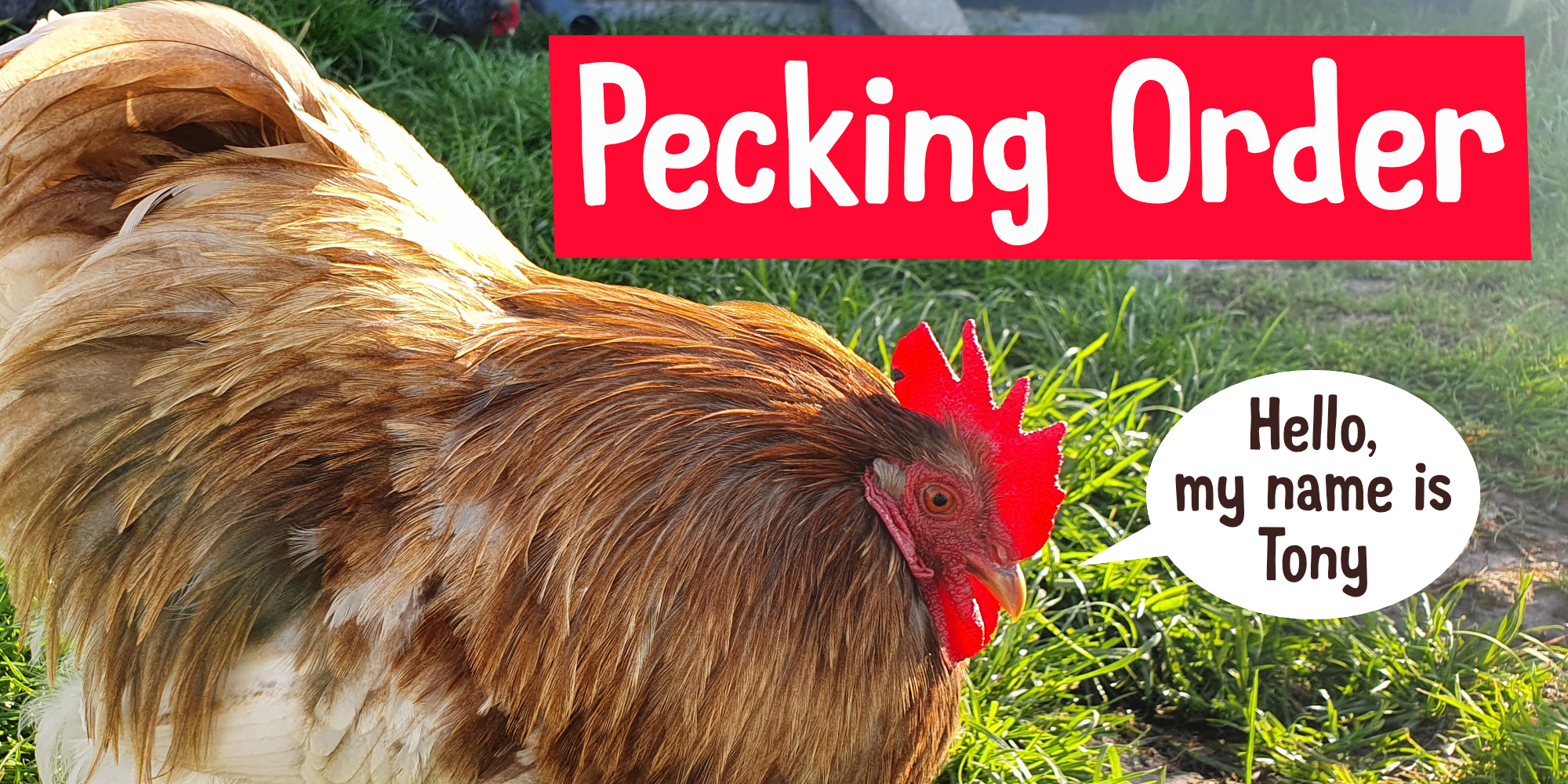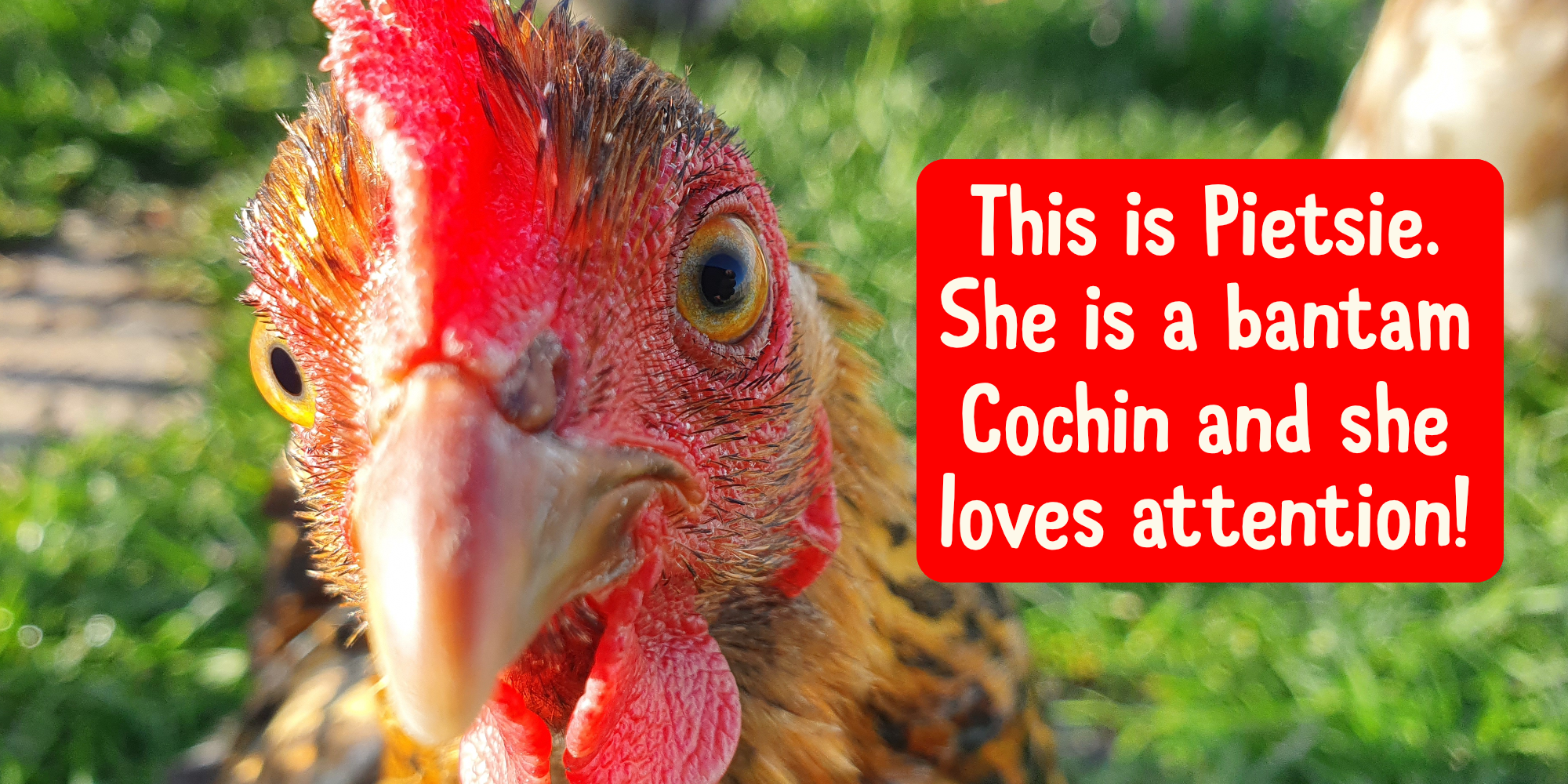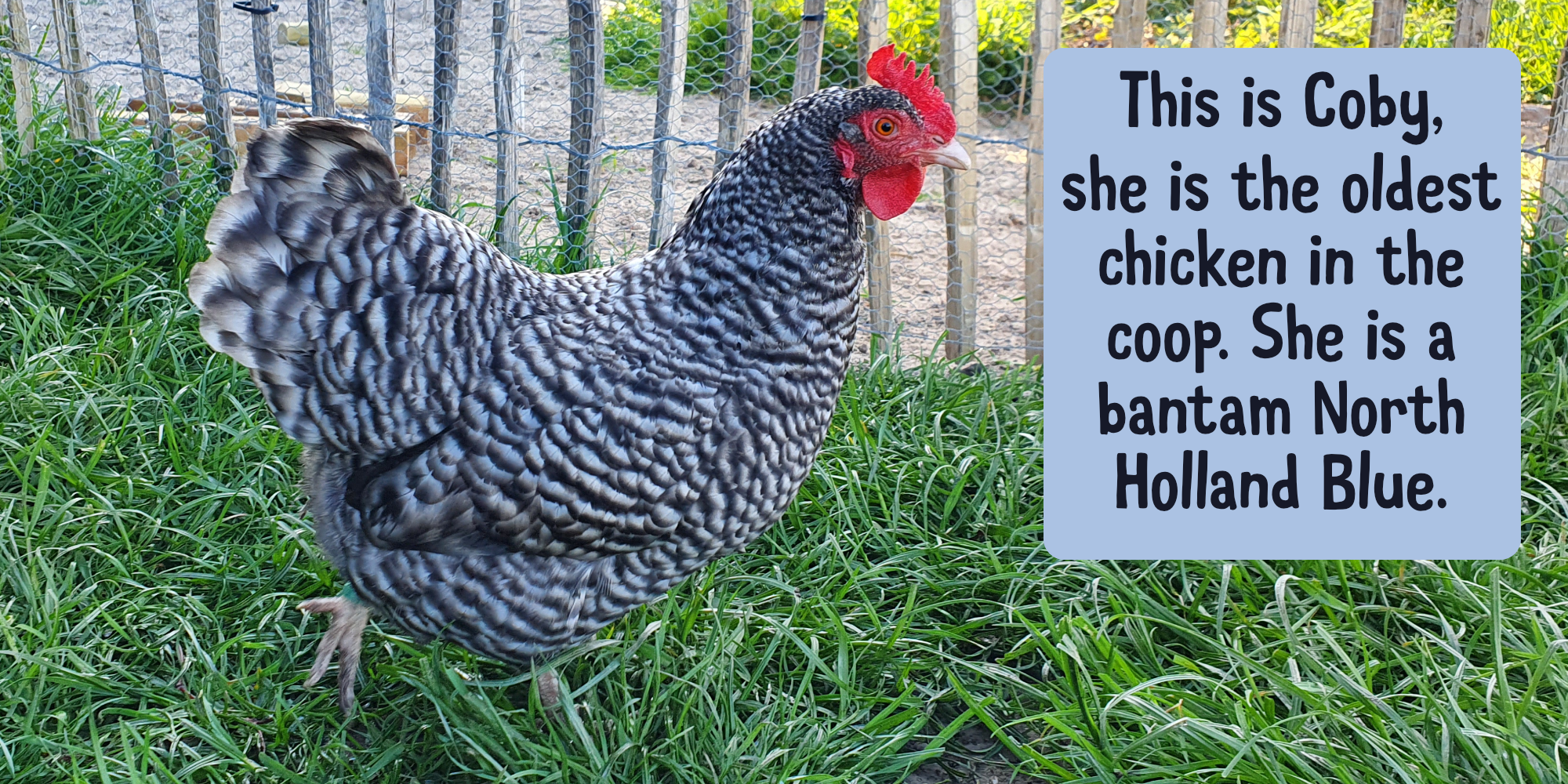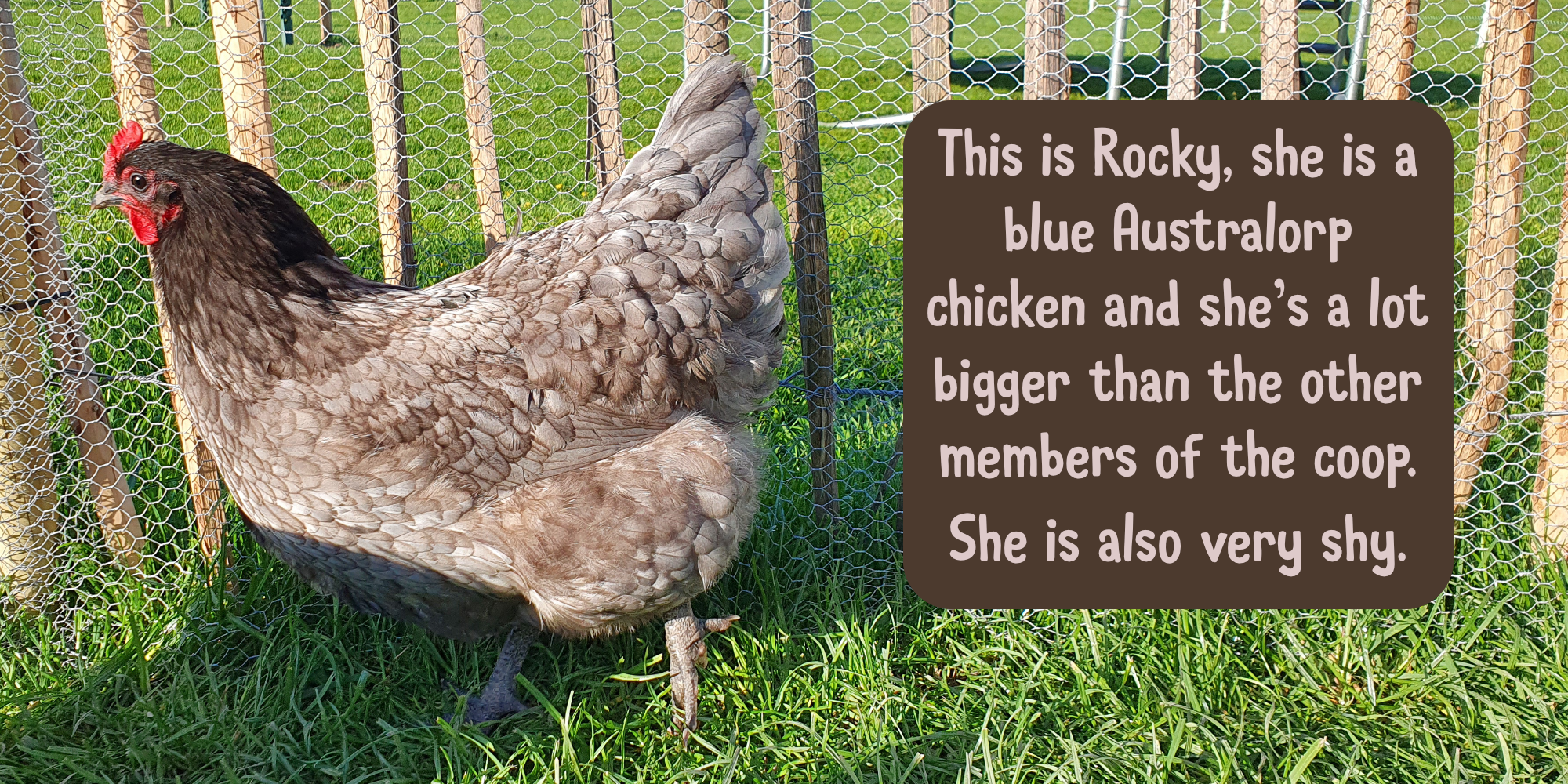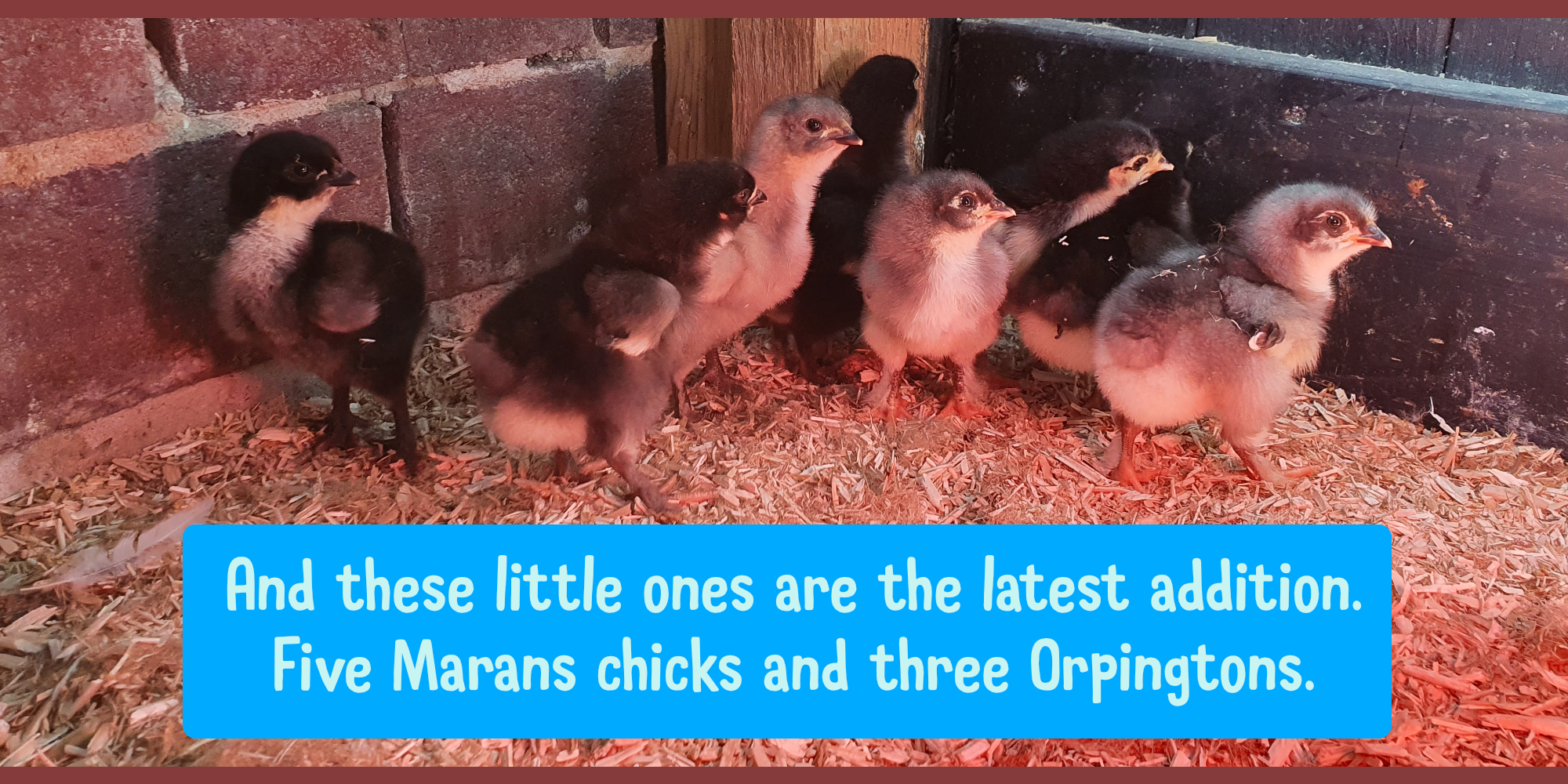
As I was busy working on this font, the chickens were sitting in the window, looking at me and hoping they'd get a treat!
Pecking Order is a cartoon and kids font. It comes with a wholesome, homemade goodness and extensive language support, including Sami, Greek and Vietnamese.